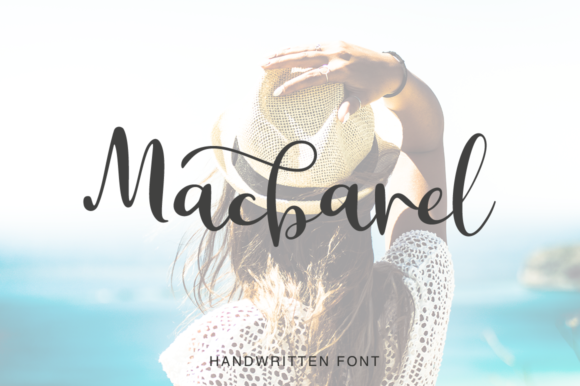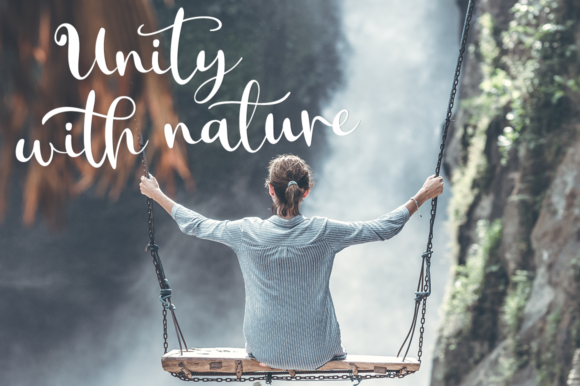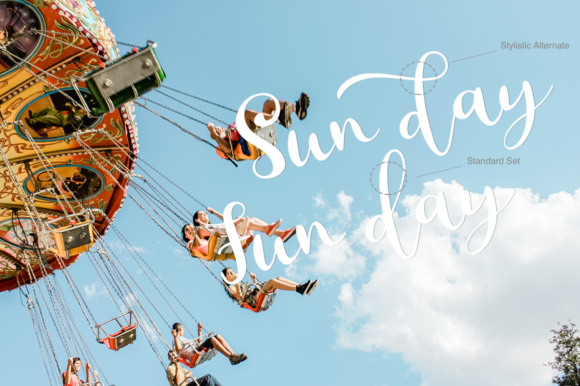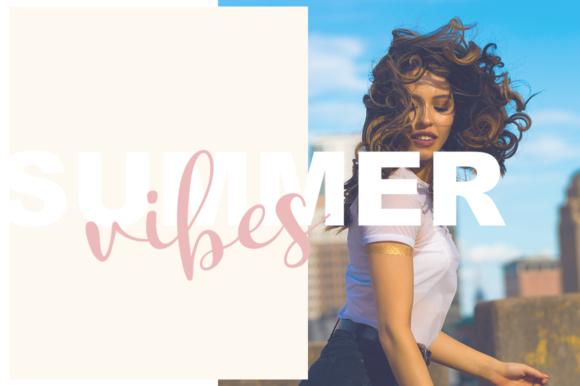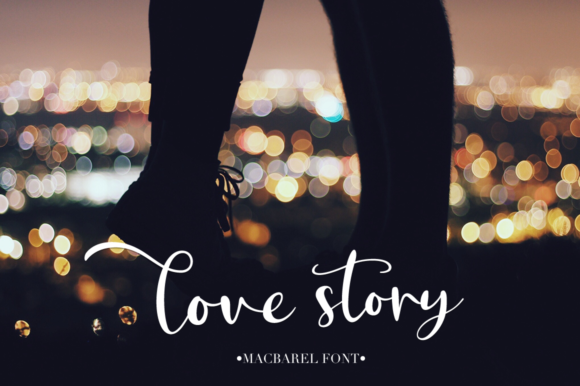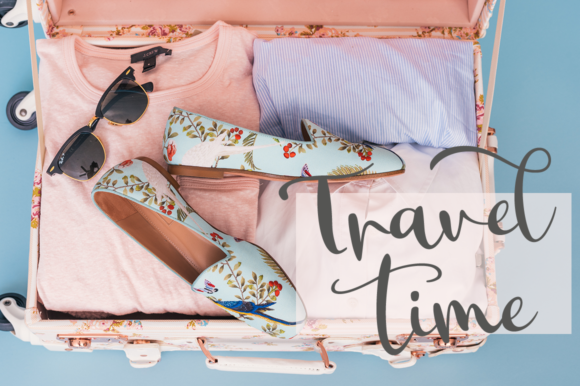
Macbarel Font
About Macbarel Font
Macbarel is a elegant handwritten typeface. It’s ideal for branding and decorating your project, and is perfect for wedding invitations or blogs.